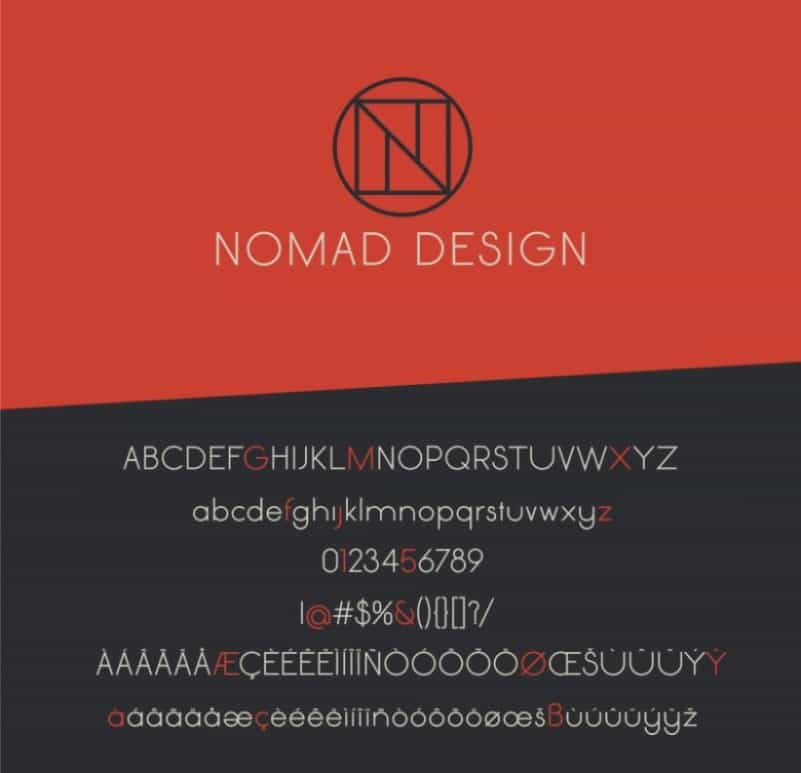
Limerock is an advanced humanist sans serif font developed by ECFC that comes in six versions – numbers, uppercase letters, lowercase letters, symbols and multilingual character sets – making it suitable for your next endeavor.